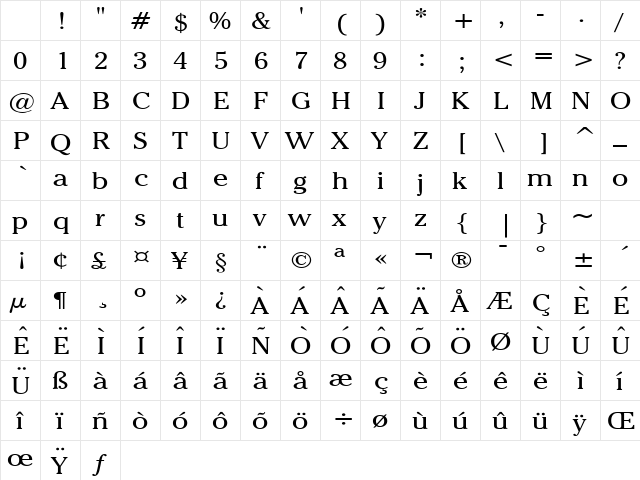
Complete Chelsey Wide Normal glyph index. Displaying only characters natively supported by Chelsey Wide Normal font.
Chelsey Wide is a composed and adaptable typeface that performs quietly and consistently across a wide range of design contexts.